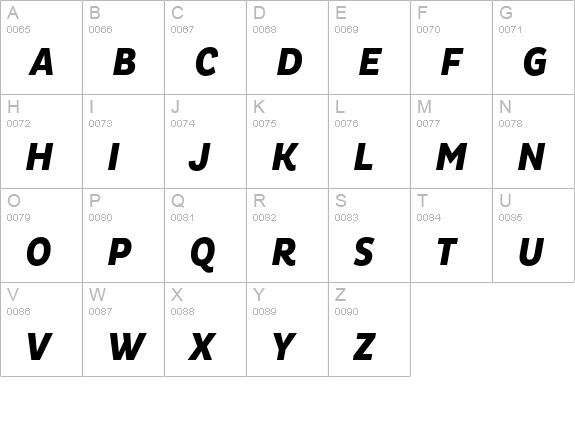
Pluto Cond Heavy Italic Font Details
Pluto Cond Heavy Italic is a heavy, high-impact, condensed-width, italic variant in the Pluto typeface family \xE2\x80\x94 well suited to high-impact headlines, posters, and display advertising.